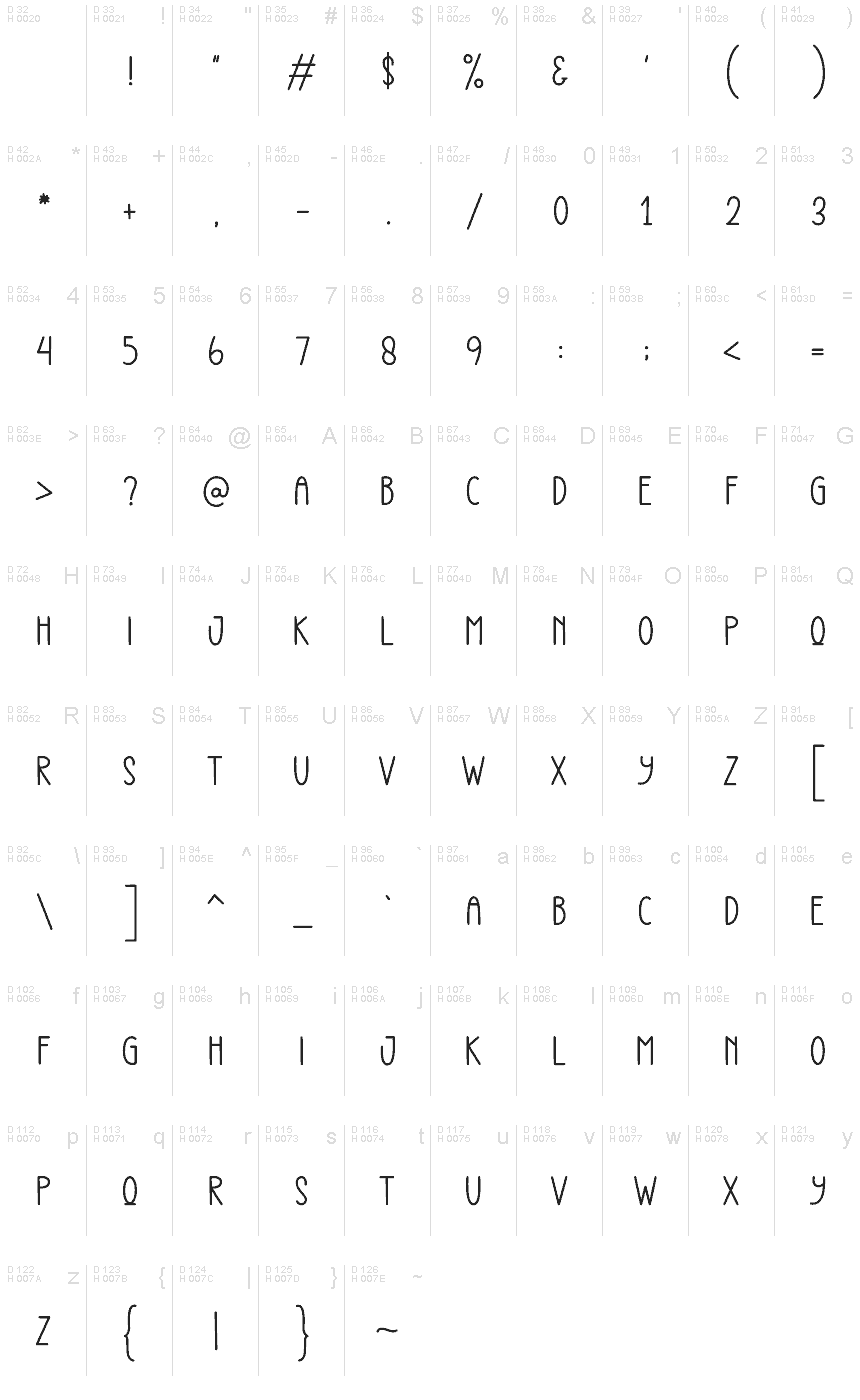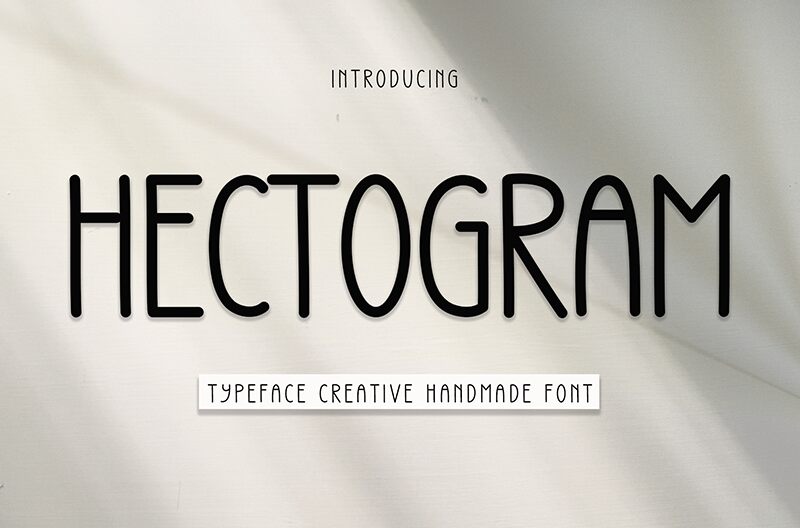
Hectogram
This modern sans serif Hectogram font by Andi Moz is a condensed sans serif typeface created with pen on paper, inspired by geometric typography, and available to download freely.
The thin lines and solid shapes of the letters bring you to a world of retro type, and Hectogram will take the appearance of your designs to another level when used for album and mixtape covers, labels and posters for vintage and retro events, and packaging designs.